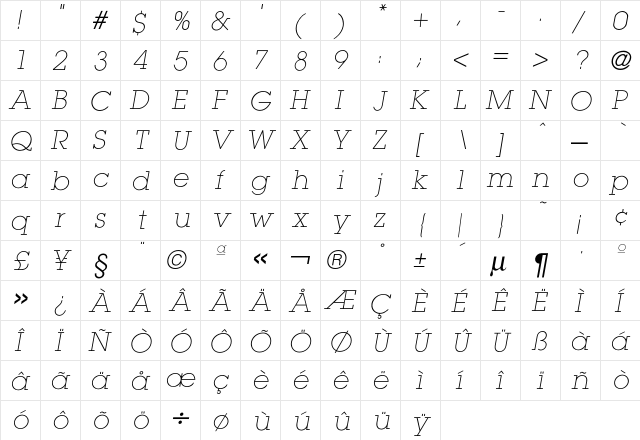
Lubalin XLightOblique Font Preview
Lubalin XLightOblique
Design Context for Lubalin Typeface
Lubalin is a composed and adaptable typeface that performs quietly and consistently across a wide range of design contexts. Its italic angle brings a sense of urgency and motion to the letterforms. The delicate stroke weight brings airiness and refinement to layouts.
Pro Tip: Try Lubalin for annotation and caption copy alongside an upright companion — the contrast in angle creates a dynamic but ordered typographic system.